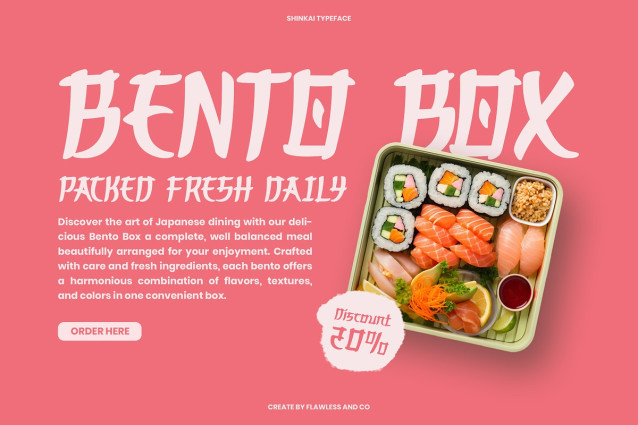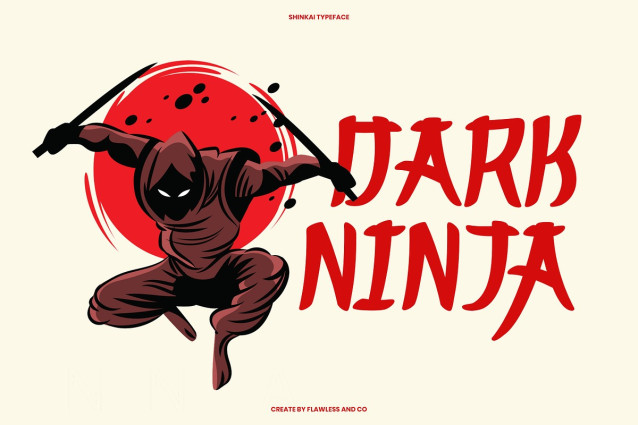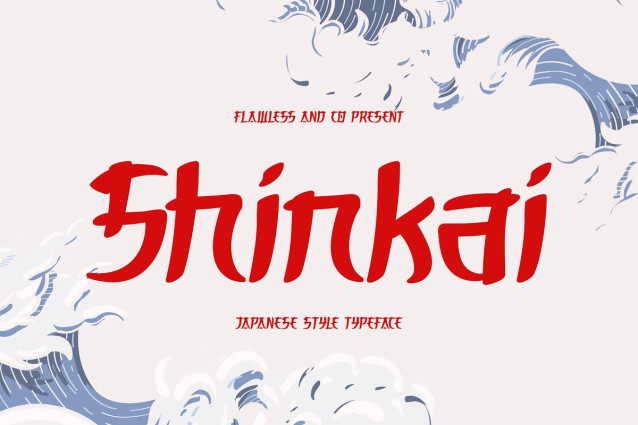
Shinkai – Japanese Style Font
Shinkai – Japanese Style Font is a bold Japanese-style typeface that blends tradition and modern flair. Inspired by brush strokes and Eastern aesthetics, Shinkai brings a sense of movement and cultural depth to your design. Perfect for branding, posters, menus, and themed visuals, this font captures the elegance of Japanese calligraphy with a contemporary twist. Add a touch of the East to your next project with Shinkai‘s dynamic and expressive letterforms.